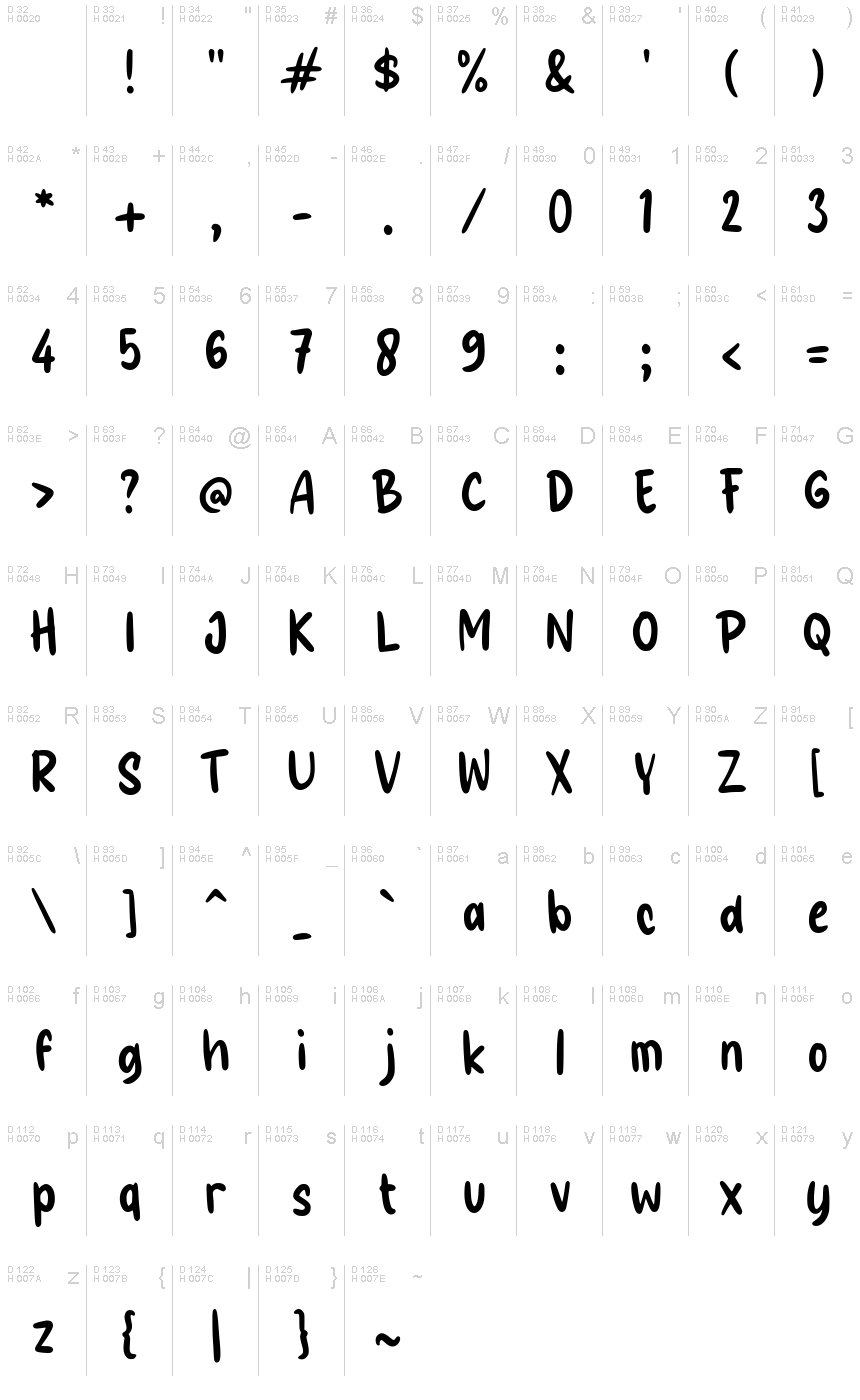
Guyone
Guyone is a captivating handwritten font that exudes a distinct sense of personality and character. The fluid, organic strokes and playful flourishes lend an artisanal, hand-crafted aesthetic to the design, making it an appealing choice for a wide range of creative applications.
The font's dynamic, expressive nature makes it particularly well-suited for projects that require a touch of individualism, such as branding, packaging, or editorial design. Its versatility allows it to seamlessly transition between formal and casual settings, effortlessly conveying a range of moods and tones.
Guyone's striking visual appeal and versatility make it a valuable addition to any designer's toolkit, offering a unique and impactful way to bring a personal, human touch to digital or print-based projects.
The font's dynamic, expressive nature makes it particularly well-suited for projects that require a touch of individualism, such as branding, packaging, or editorial design. Its versatility allows it to seamlessly transition between formal and casual settings, effortlessly conveying a range of moods and tones.
Guyone's striking visual appeal and versatility make it a valuable addition to any designer's toolkit, offering a unique and impactful way to bring a personal, human touch to digital or print-based projects.